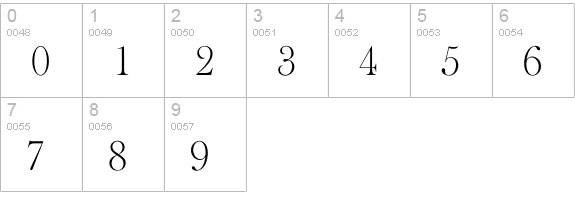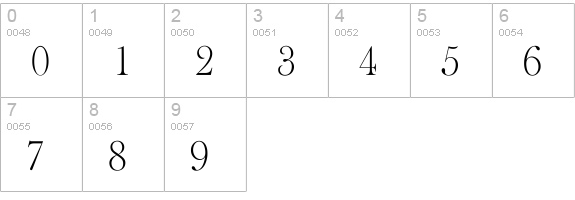
Oldbasker Xlight font is a timeless and elegant typeface that exudes sophistication and charm. With its delicate serifs and graceful curves, this font is perfect for adding a touch of classic beauty to your design projects. Whether you are working on invitations, branding materials, or editorial layouts, Oldbasker Xlight will bring a sense of refinement and luxury to your work. What makes Oldbasker Xlight even more appealing is that it is available for free download at FontsMarket.com. This means that you can easily access this stunning font and use it in your projects without any cost. So why wait? Enhance your designs with the beauty of Oldbasker Xlight today!